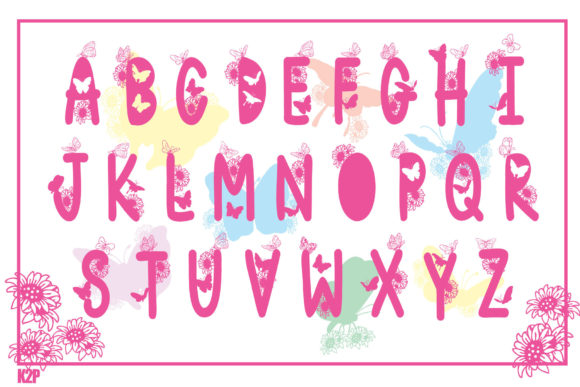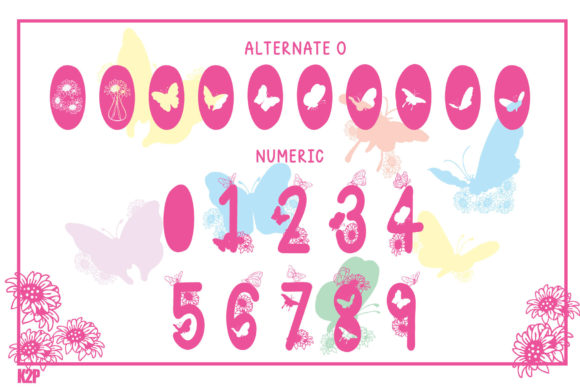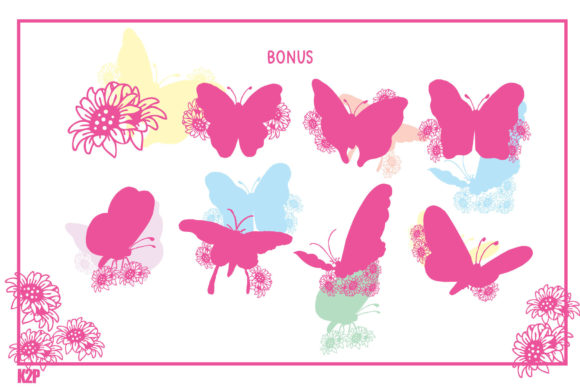
Introduction to Butterfly and Sunflower Font
Butterfly and Sunflower is a thick-lettered and festive decorative font suitable for various quotes or teaching material.
Key Features of Butterfly and Sunflower Font